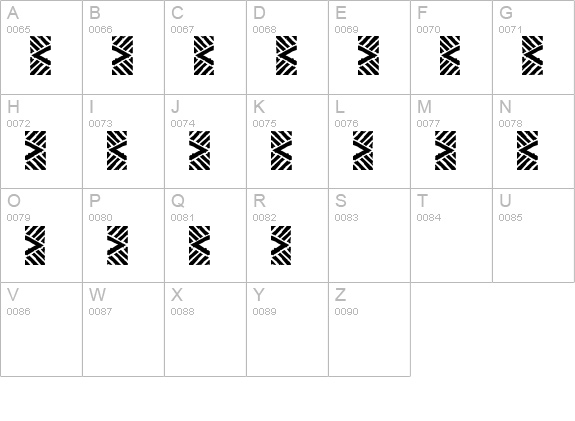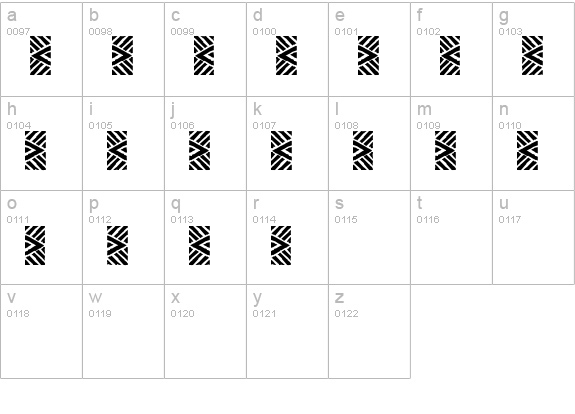
Stoned-MosaicThree font is a unique and eye-catching display font that combines elements of stone textures and mosaic patterns to create a truly one-of-a-kind design. This font exudes a sense of ruggedness and creativity, making it perfect for projects that require a bold and distinct look. What sets Stoned-MosaicThree font apart is its versatility - it can be used for a wide range of design projects, from posters to logos to packaging. Its intricate detailing and unconventional style will surely make your work stand out from the crowd. The best part about Stoned-MosaicThree font is that it is completely free to download at FontsMarket.com. This means that you can start using this striking font in your projects right away without having to spend a penny. Don't miss out on the opportunity to add this unique font to your design toolkit today!